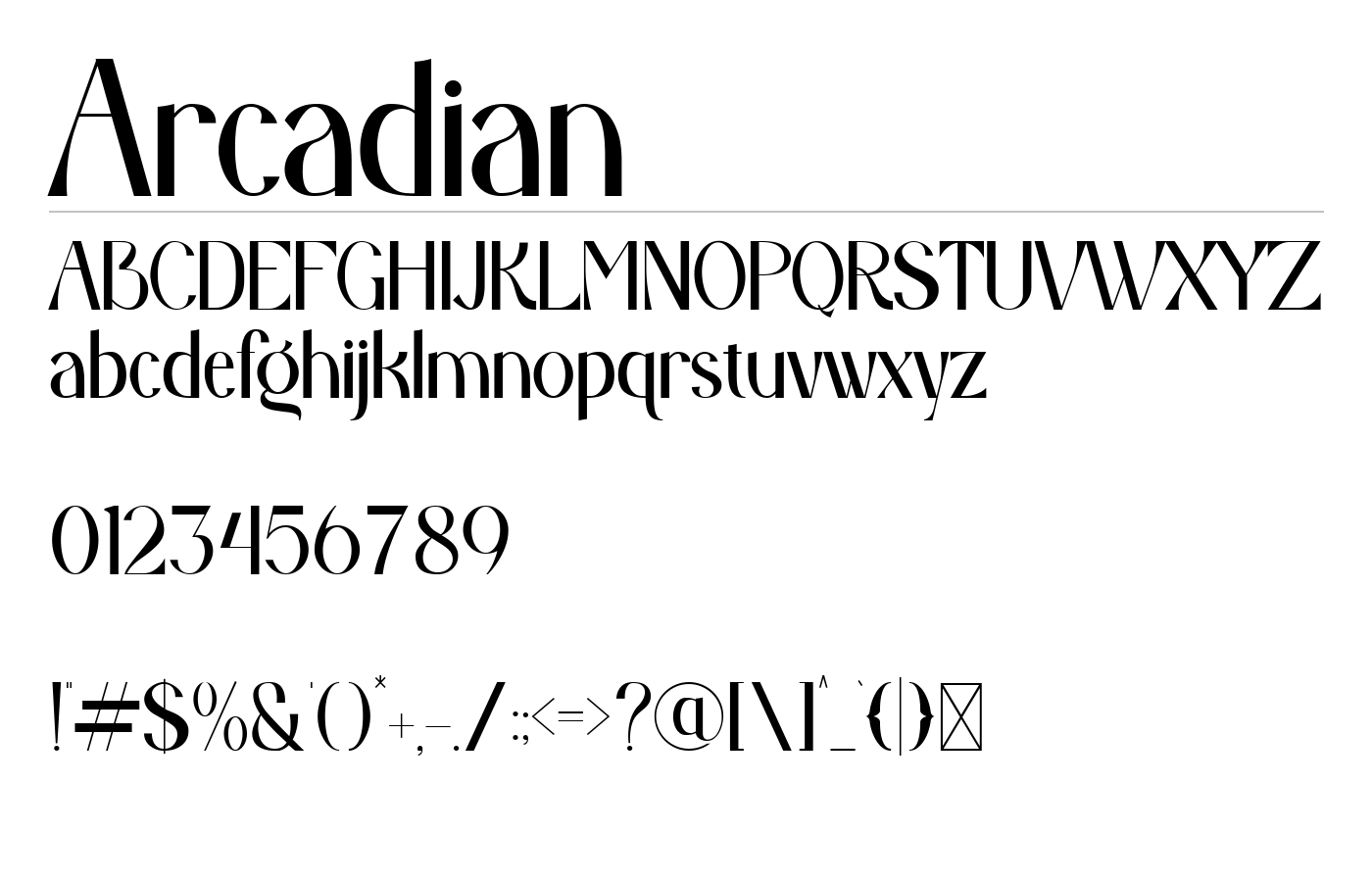
Arcadian is a stylish serif font with a high-contrast modern look that features elegant, elongated letterforms and unique, sculptural details. Its narrow width and distinctive strokes give it a sophisticated, artistic personality, making it a perfect choice for high-end branding, editorial headlines, and luxury packaging where a refined and contemporary feel is desired.
Arcadian Font